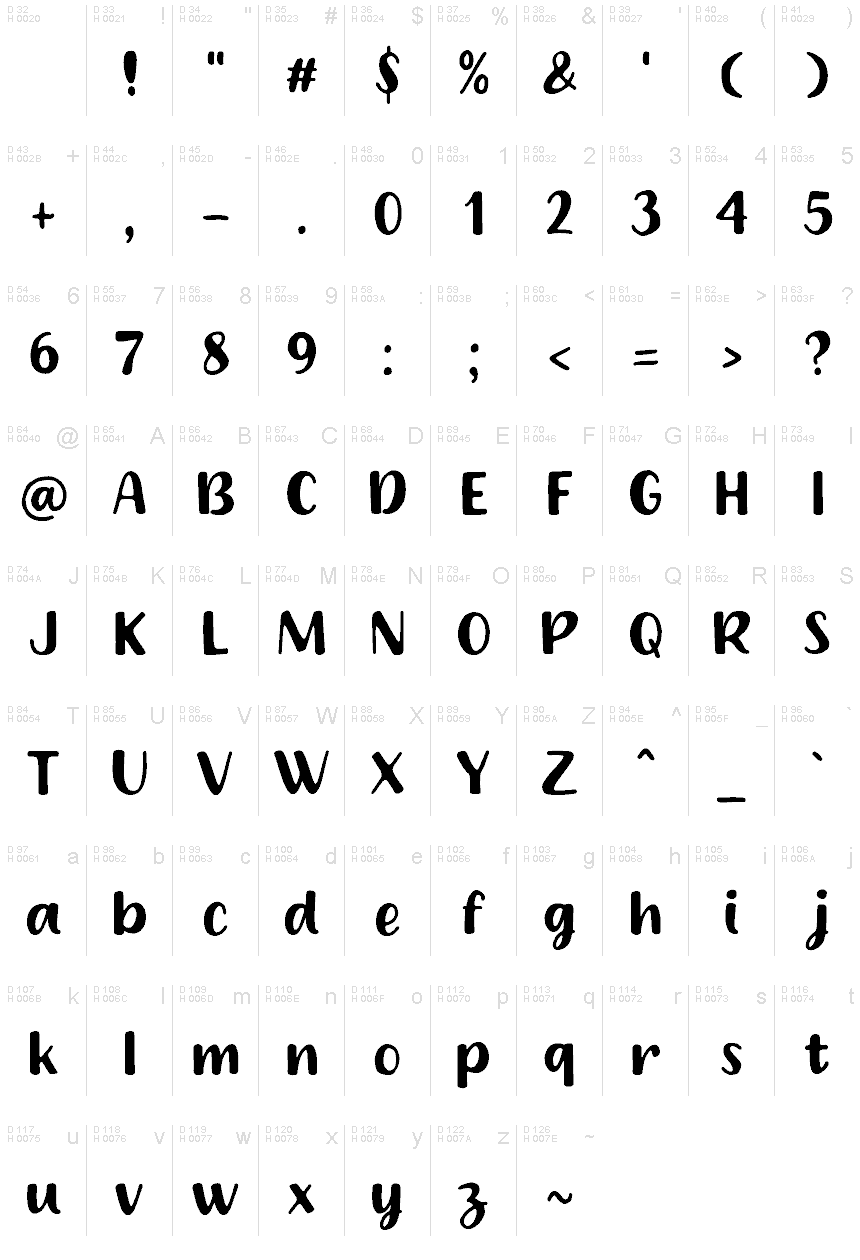
Happy Town font by MJType is a bold brush text with a romantic and flowing character. The free handwritten has expressive strokes and casual elegancy that combine to deliver an easy-going visual with a friendly vibes. The overall approachable style of the typeface can be felt in both every individual characters and when letters combine together.
Use Happy Town for logos, large posters, flyers, branding projects, packaging designs, social media posts (Instagram stories and Twitter tweets), apparel design (T-shirts), book cover design, invitations (wedding or engagement), or greeting card design. Also great use cases are web pages headlines such as for blogs dedicated to travel, recipes, fashion or social news.